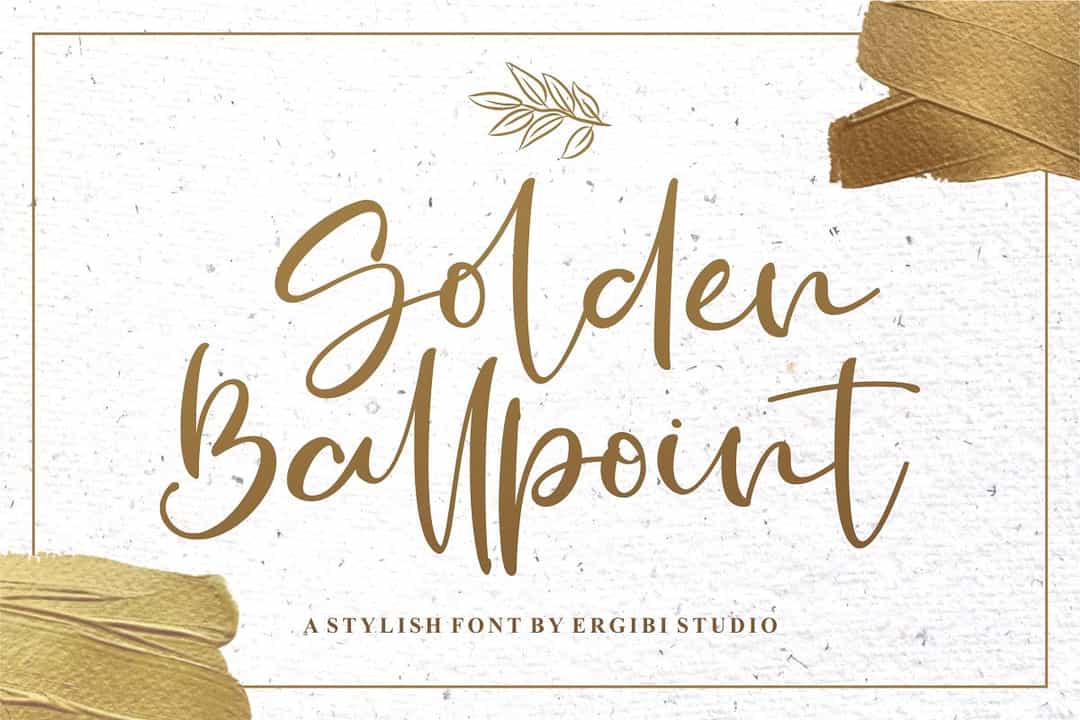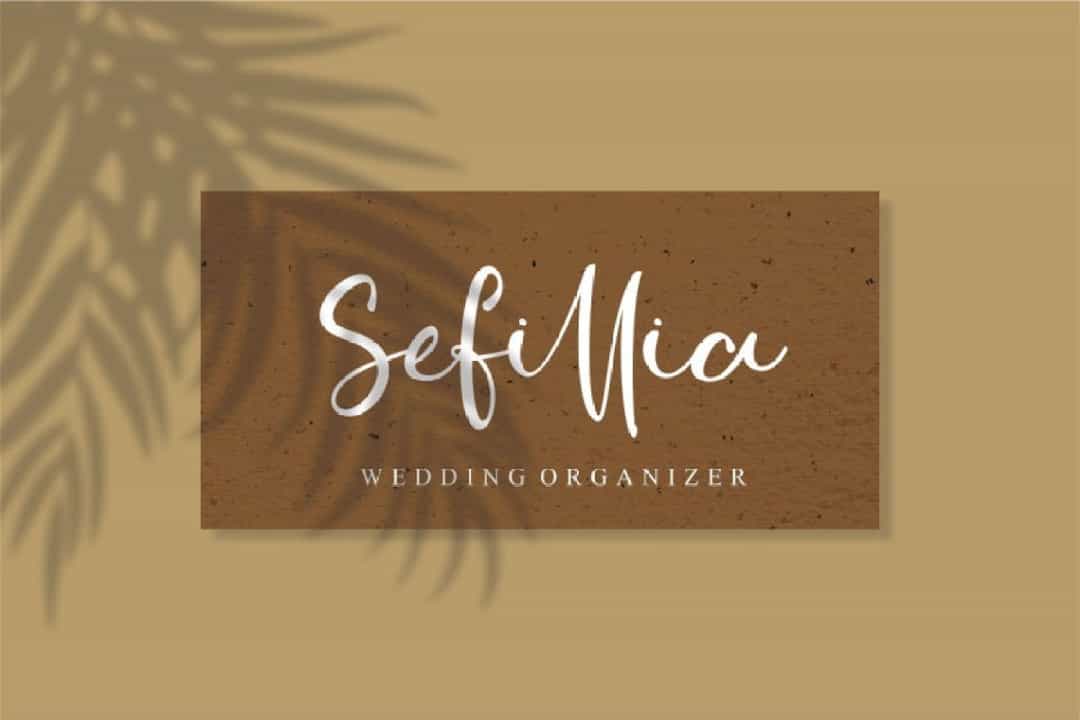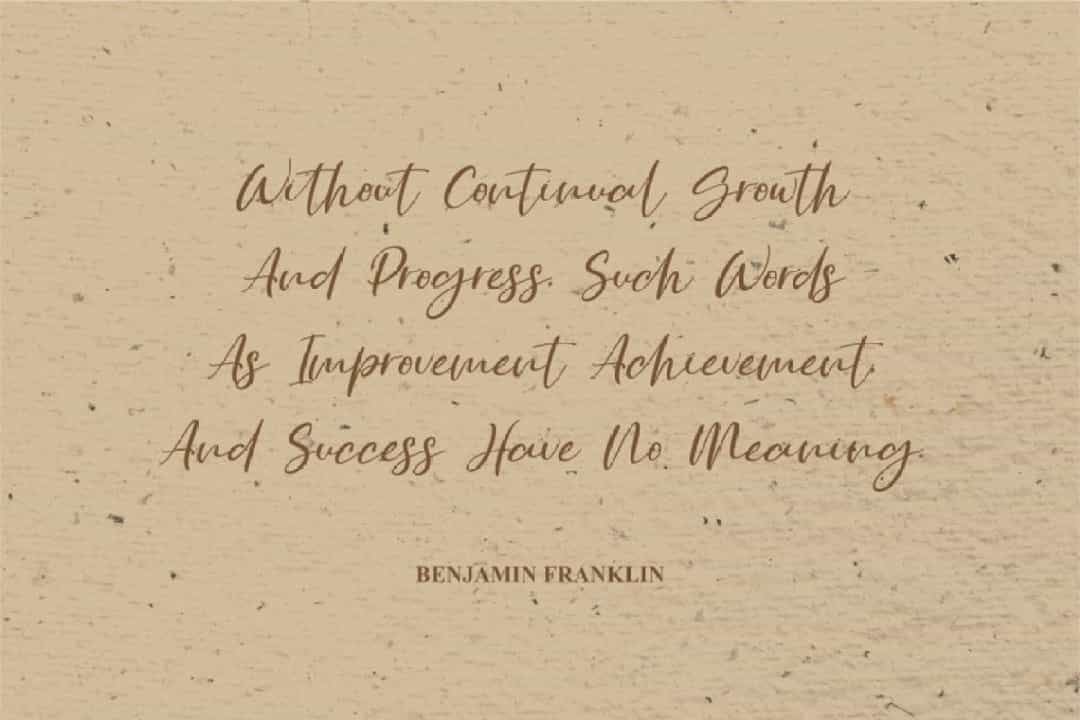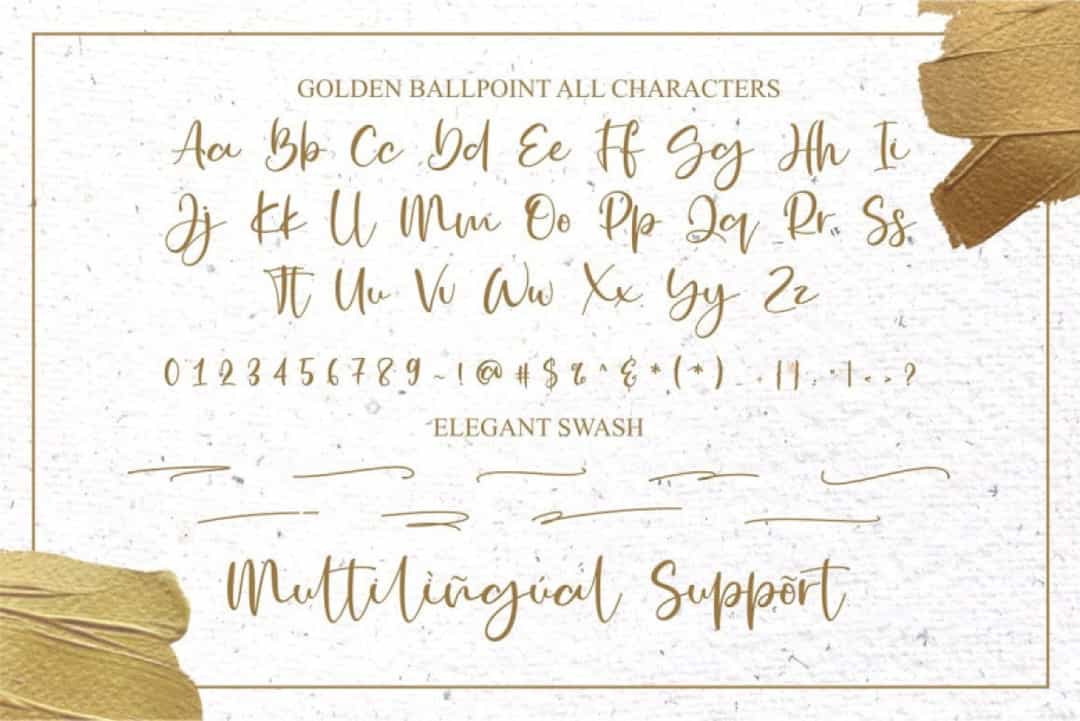
Golden Ballpoint is a beautiful cursive handwritten font with two types of styles, italic and regular. As a result of this, this font style will make a fashionable impression on your next project in whatever format as per the trends set by the famous brands. Golden Ballpoint pens are ideal for projects that need to have a touch of class, for instance; wedding designs, branding and social media posts advertisements, product packaging label designs or any project that involves writing.